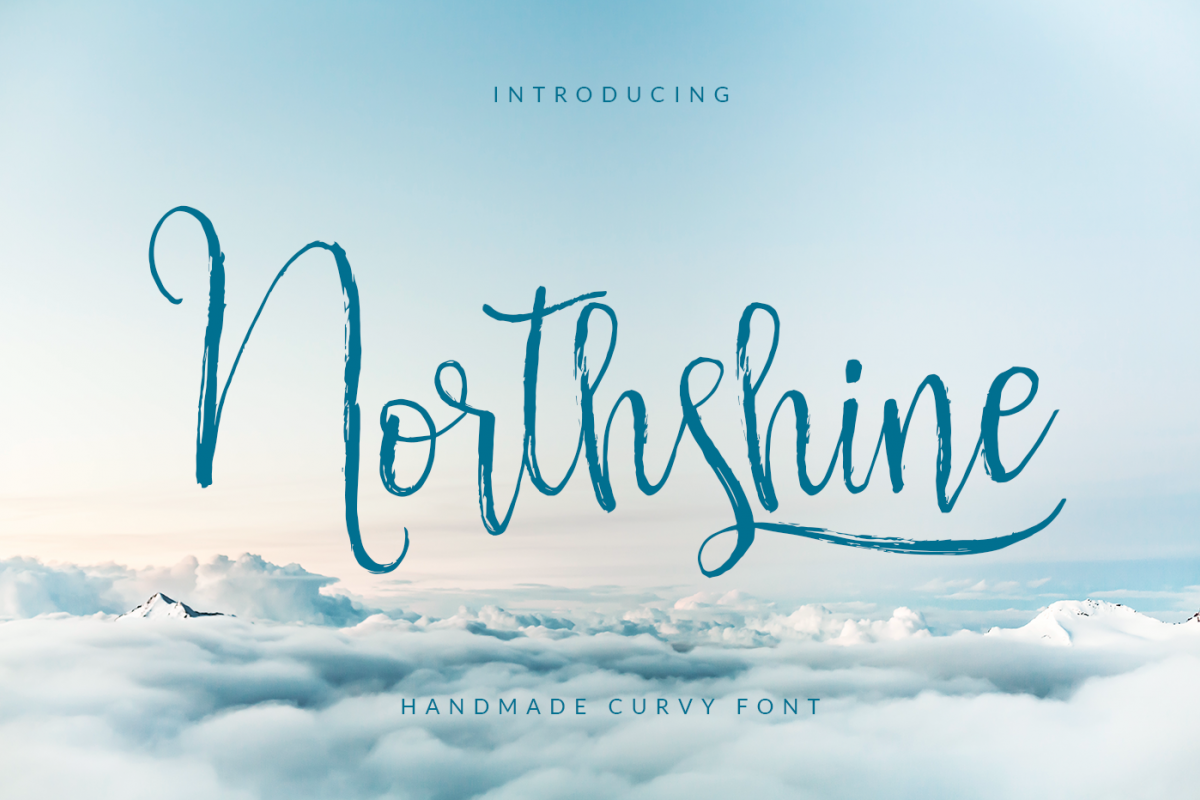
Nortshine
INTRODUCTION An esthetical, brush and natural looking font with artistic capital letters. Its name is Northshine. It has special characteristics.GREAT FOR-Glass designs -Business card projects -Tshirt designs -Messages for special days -Characteristic company logos -Blog pages -Logo of brands -Projects you need to utilize a premium font -The projects that require a font including lots of alternates*WHAT'S INCLUDED?-Uppercase -Lowercase -Numbers and Symbols -Alternate Characters -Swashes -Pua Encoded -OTF and TTFFonts that are fully accessible via character map and other software using our tutorials are known as "PUA Encoded".Do not hesitate to criticize our products. Your point of view is incredibly valuable and important to us. No doubt your feedback will provide us more input to serve you better and better.We can't wait to welcome you at our website. There, We have many gifts for you. http://www.fontart.net